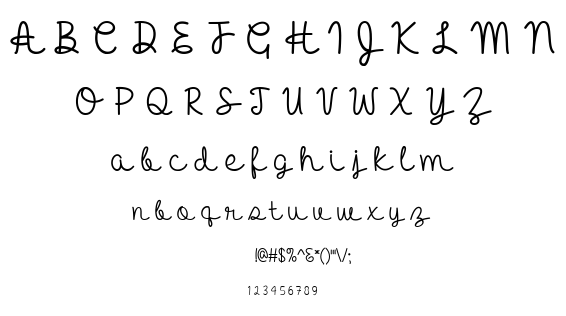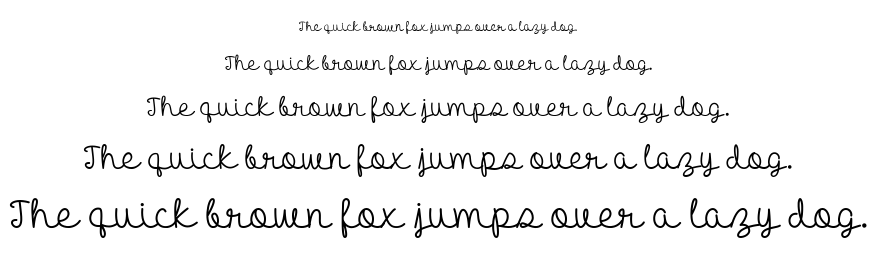
This is my first script font! It contains many kerning pairs that will show up in any program that supports kerning. If you notice any problem pairs, please contact me and let me know! Thanks!